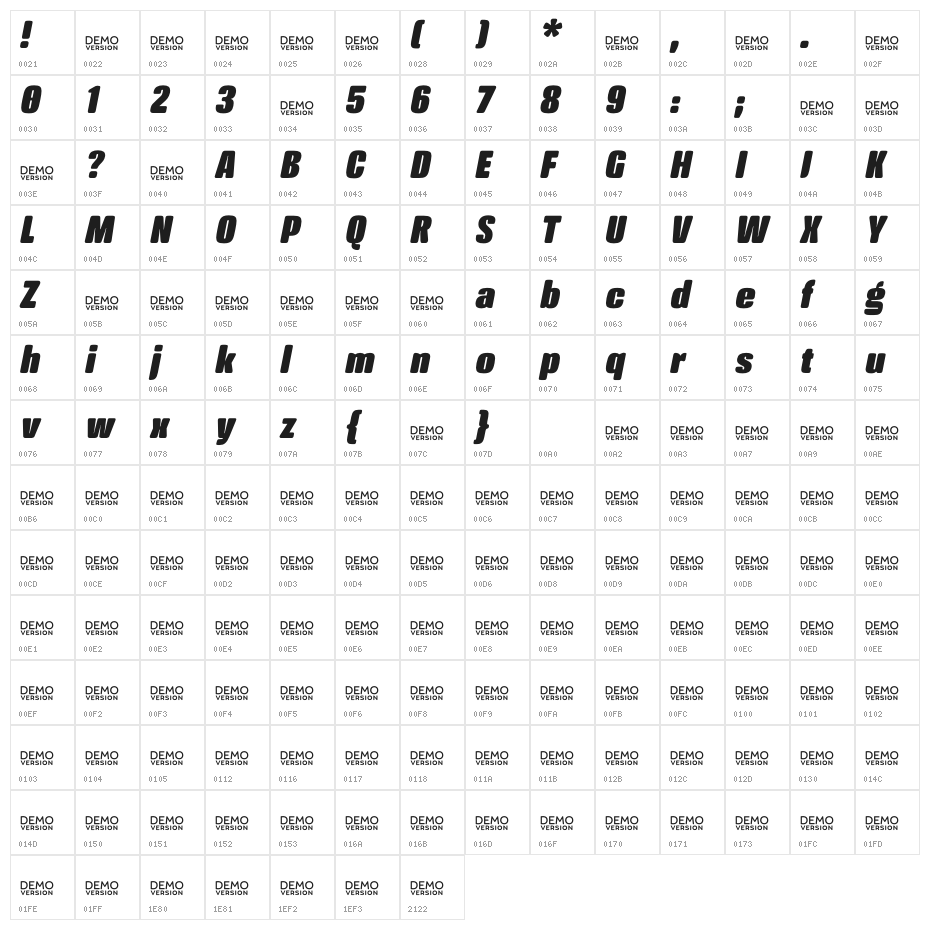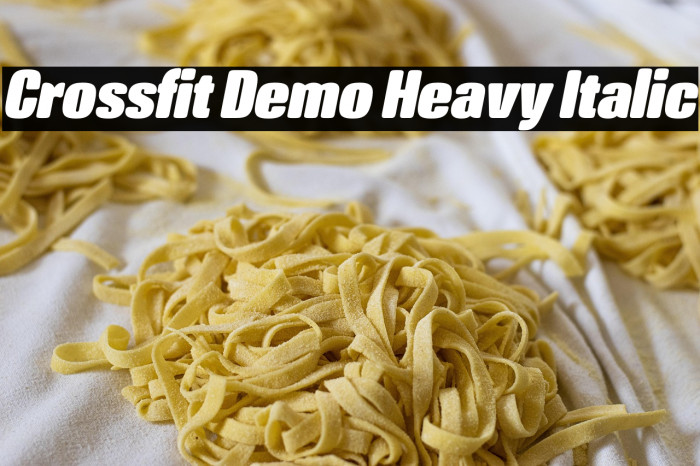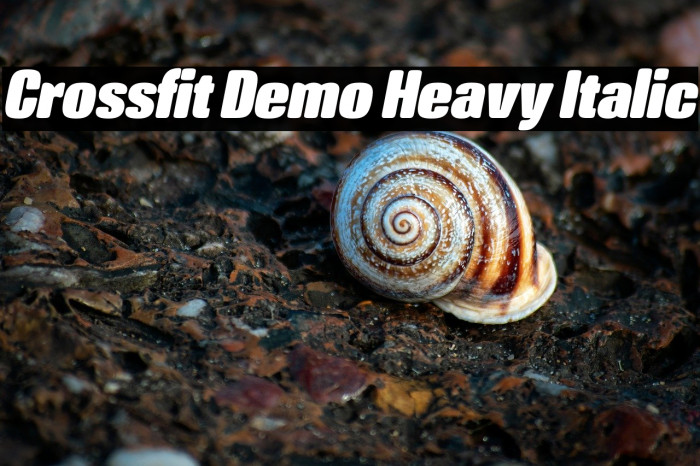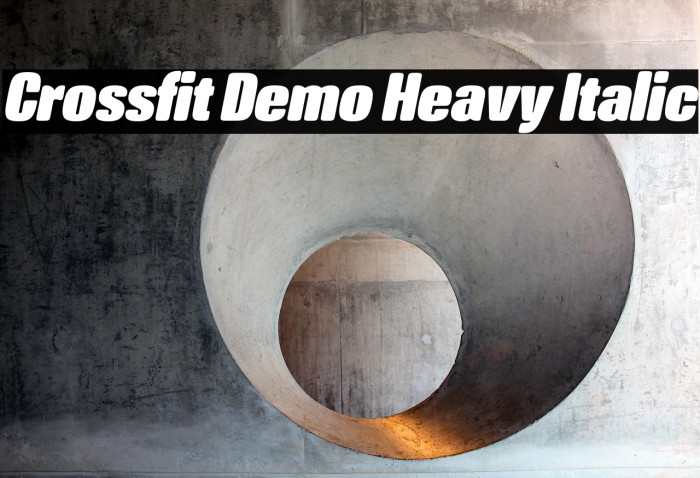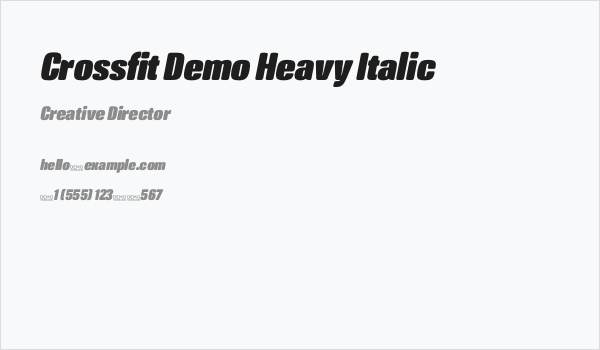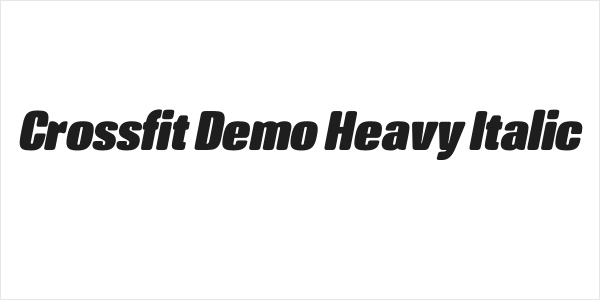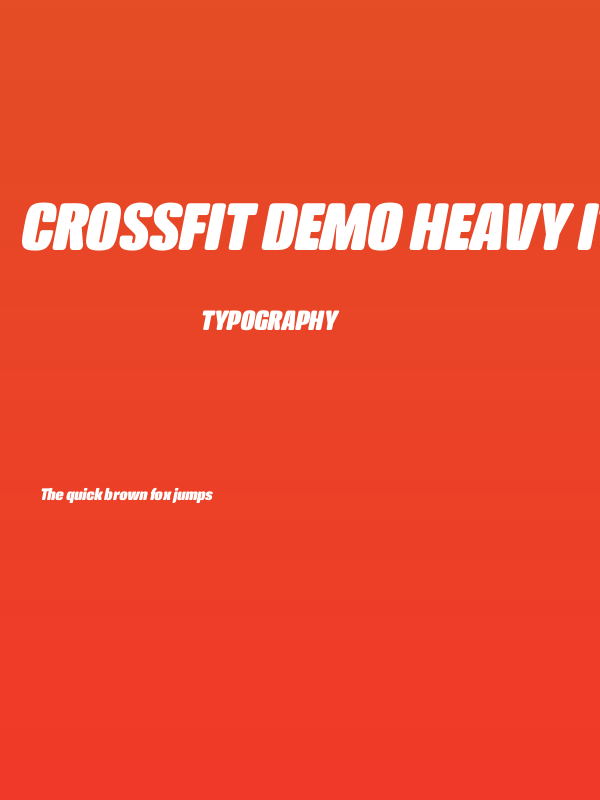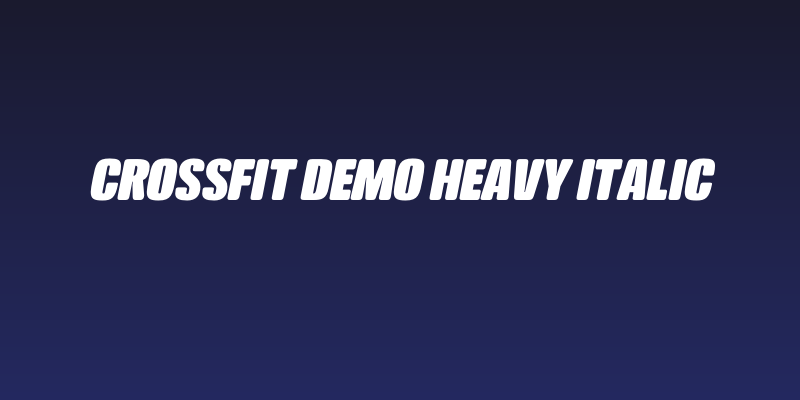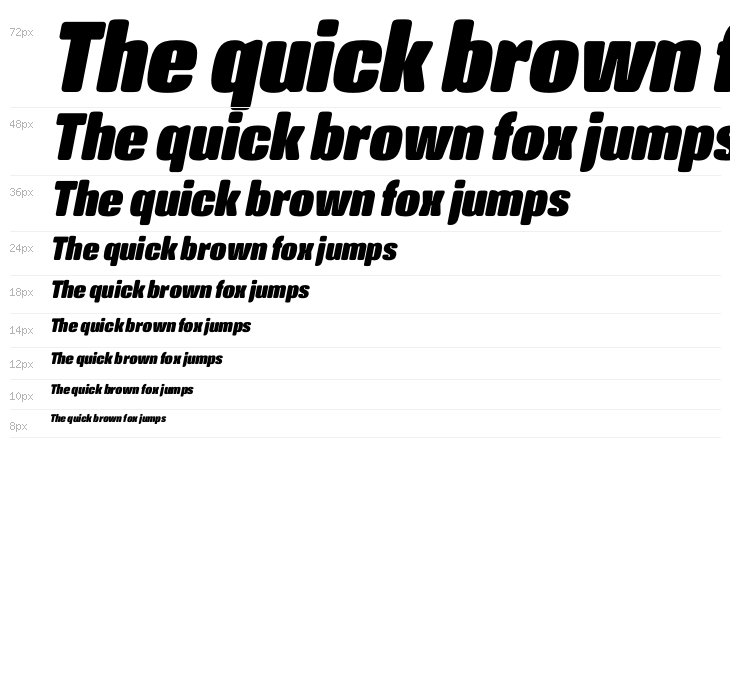
Crossfit Demo Heavy Italic Font
Crossfit Demo Heavy Italic Description
This font features a bold and heavy design with an italic slant, giving it a strong and dynamic appearance. The characters are robust and impactful, making them ideal for attention-grabbing headlines or titles. The uppercase and lowercase letters maintain a consistent weight, while the numbers and special characters complement the overall style. The font's boldness is emphasized by its thick strokes and slightly condensed width, which adds to its commanding presence. The italic angle adds a sense of movement and energy, making it suitable for modern and sporty designs.
| Proposed Projects | Ideal for sports branding, fitness posters, dynamic advertisements, and modern logo designs. |